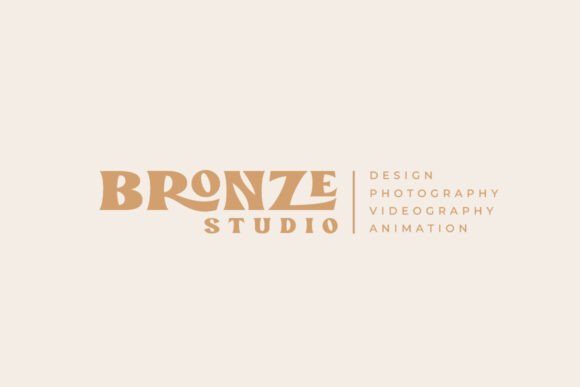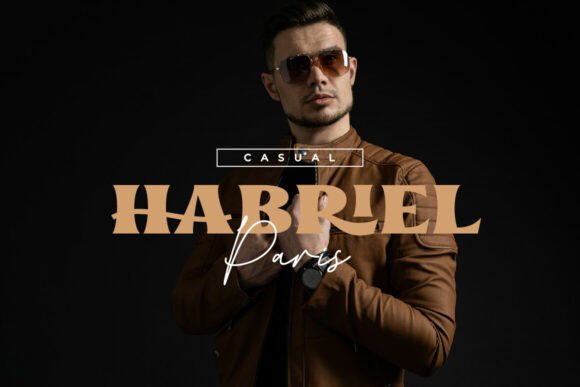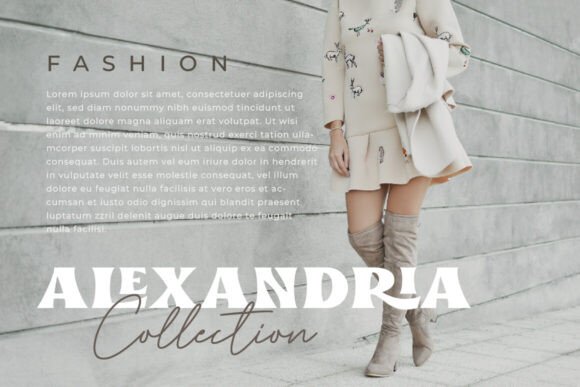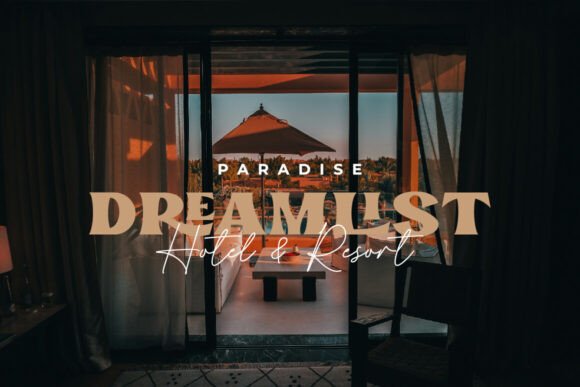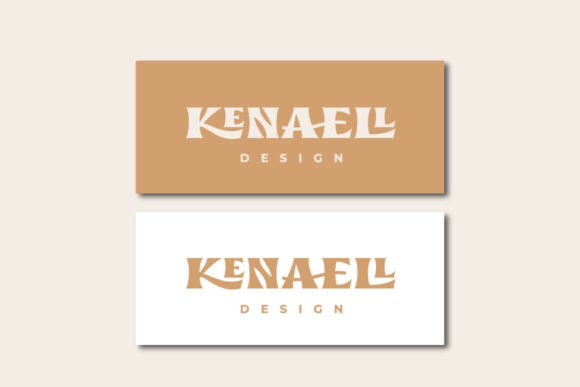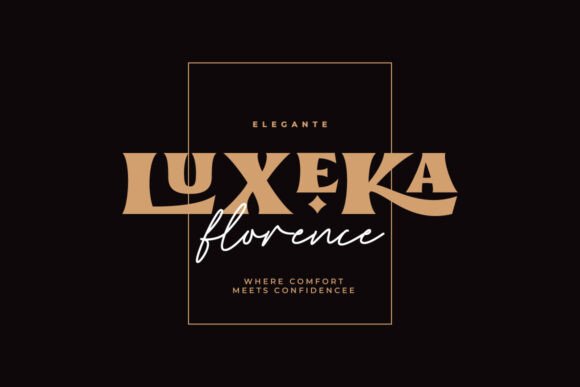
Introduction to Paris Signature Font
Paris Signature is a luxurious serif and a beautifully flowing handwritten script.
Designed to work harmoniously together or stand strong on their own, this duo brings sophistication to any project, from branding and editorial to wedding invitations and packaging design The serif font is timeless and classic, while the handwritten script adds a touch of personality and warmth.
Key Features of Paris Signature Font
Why Choose Paris Signature Font?